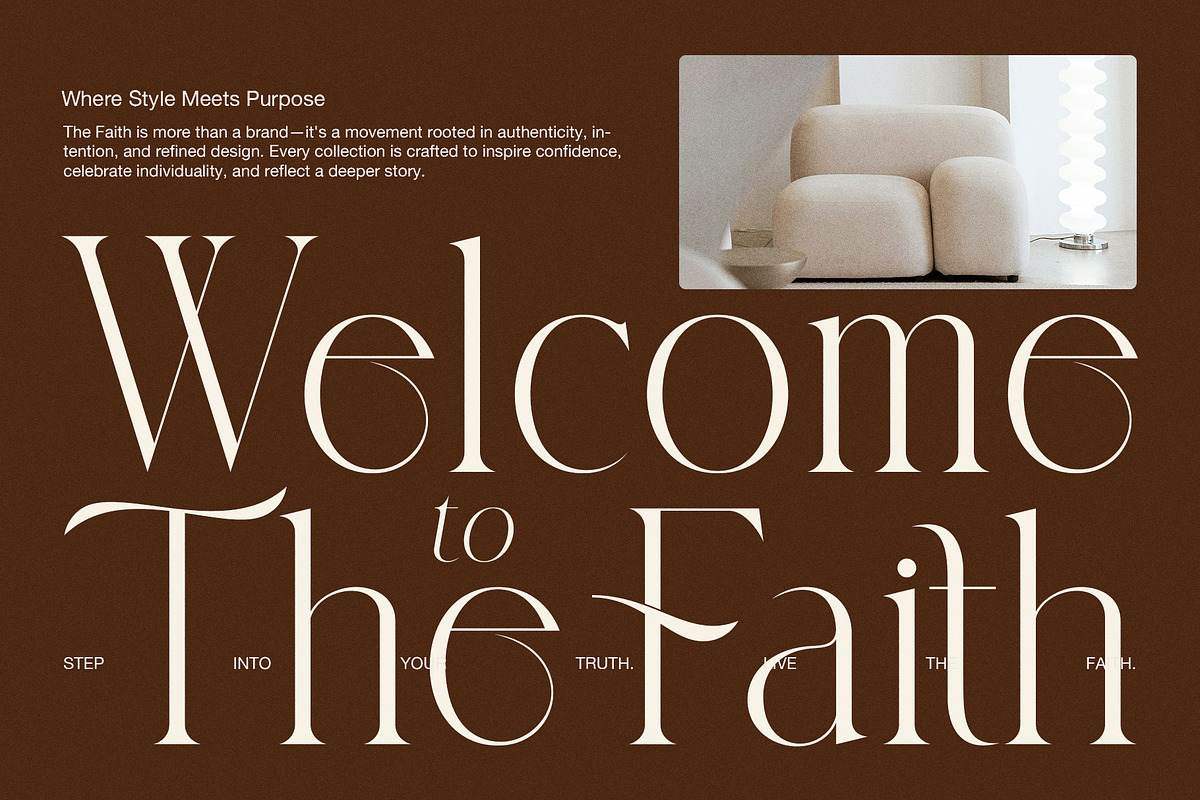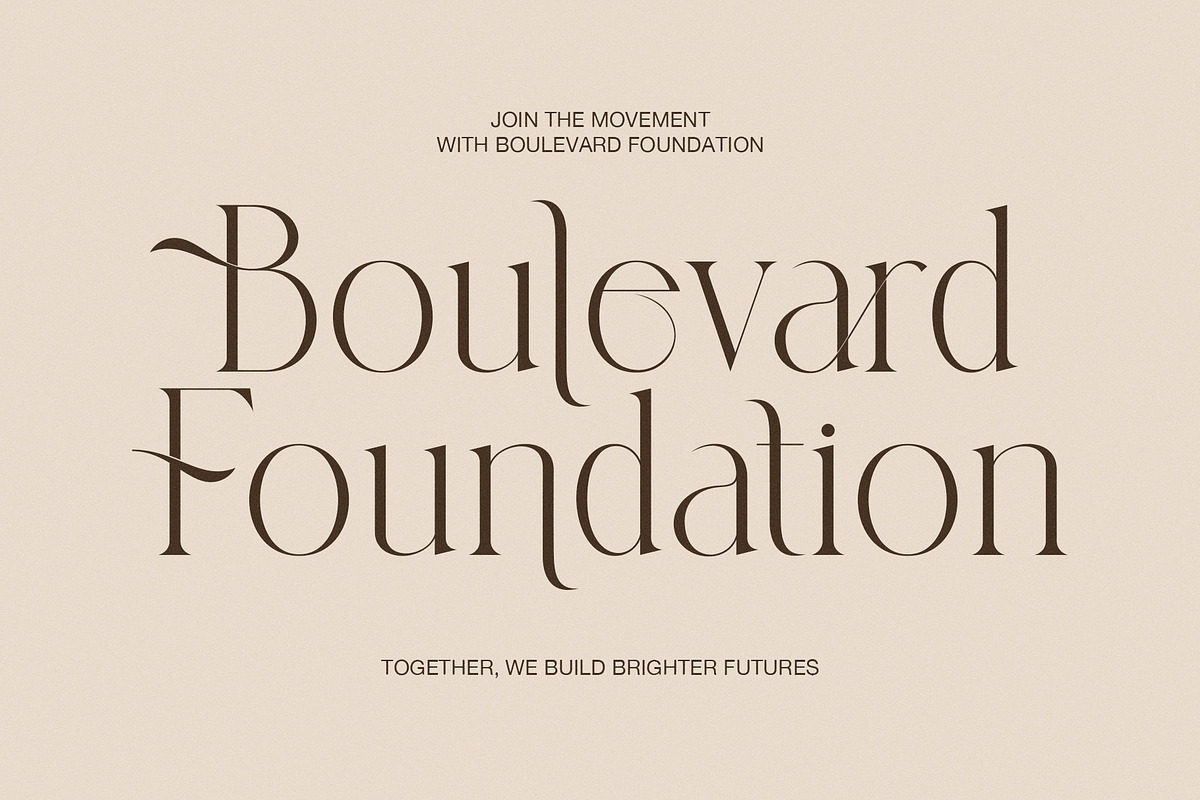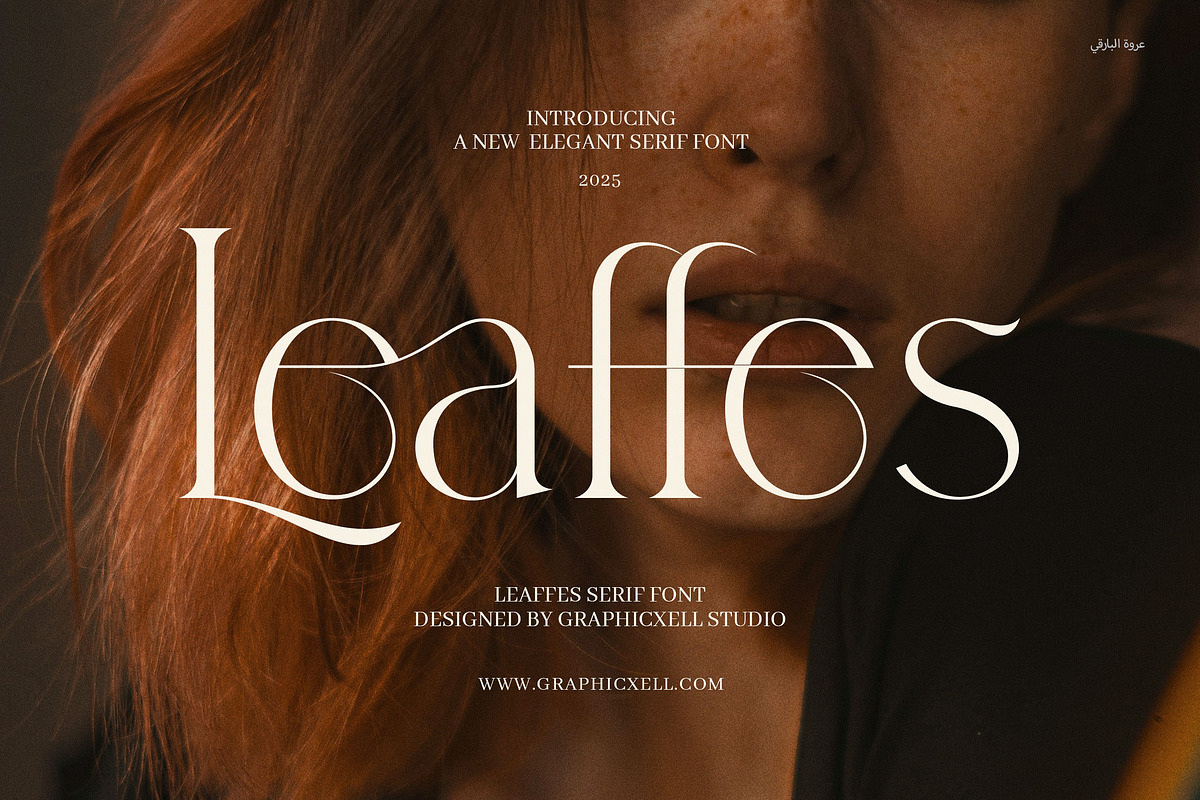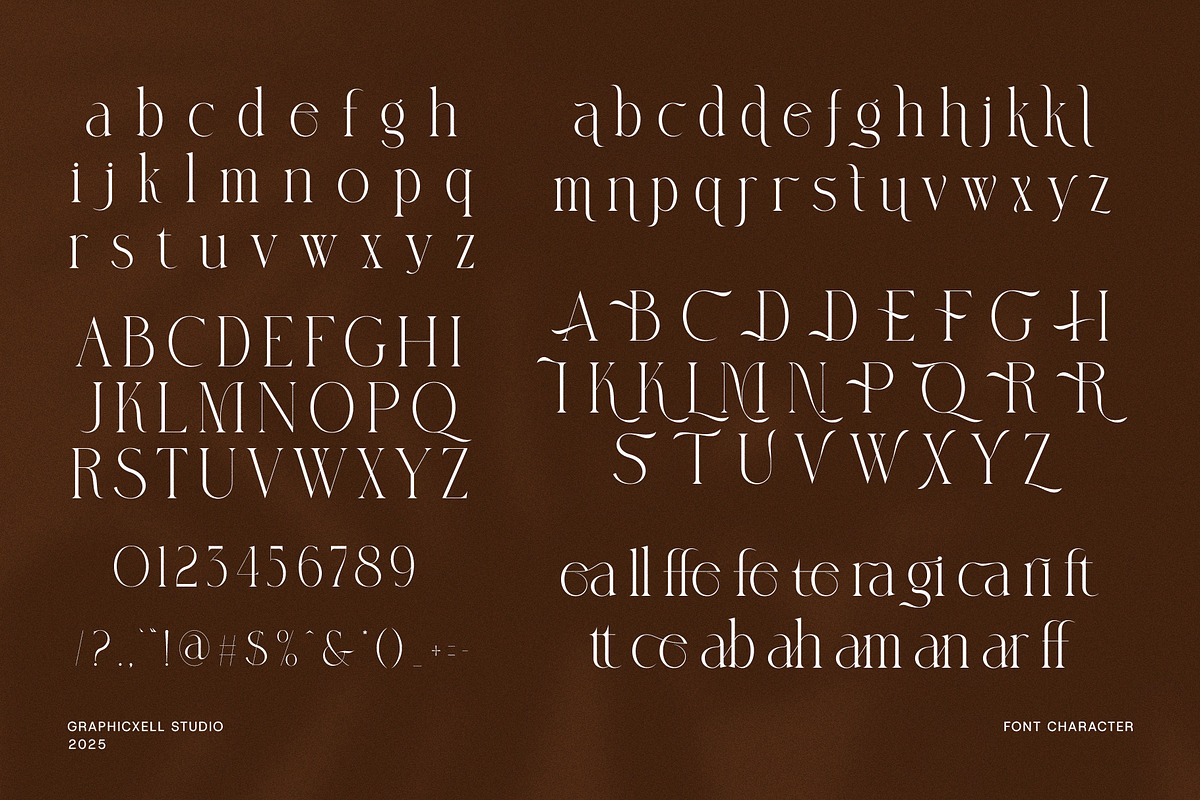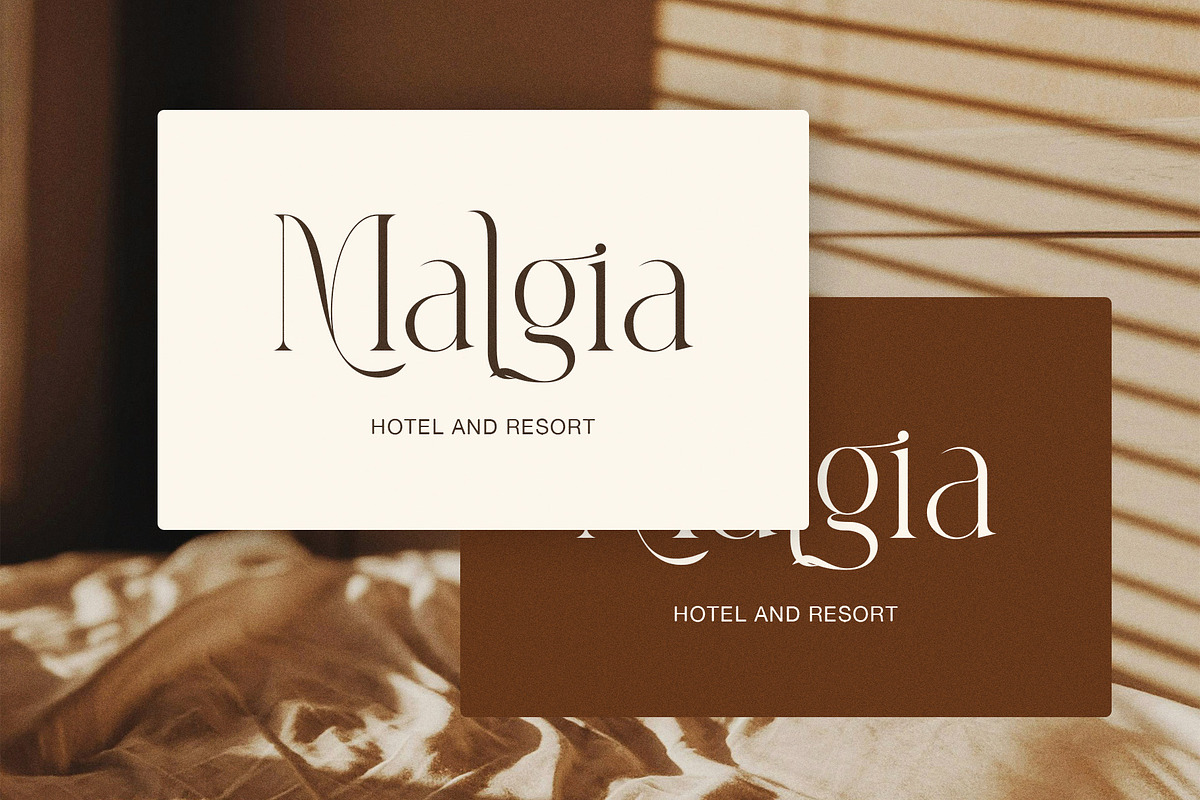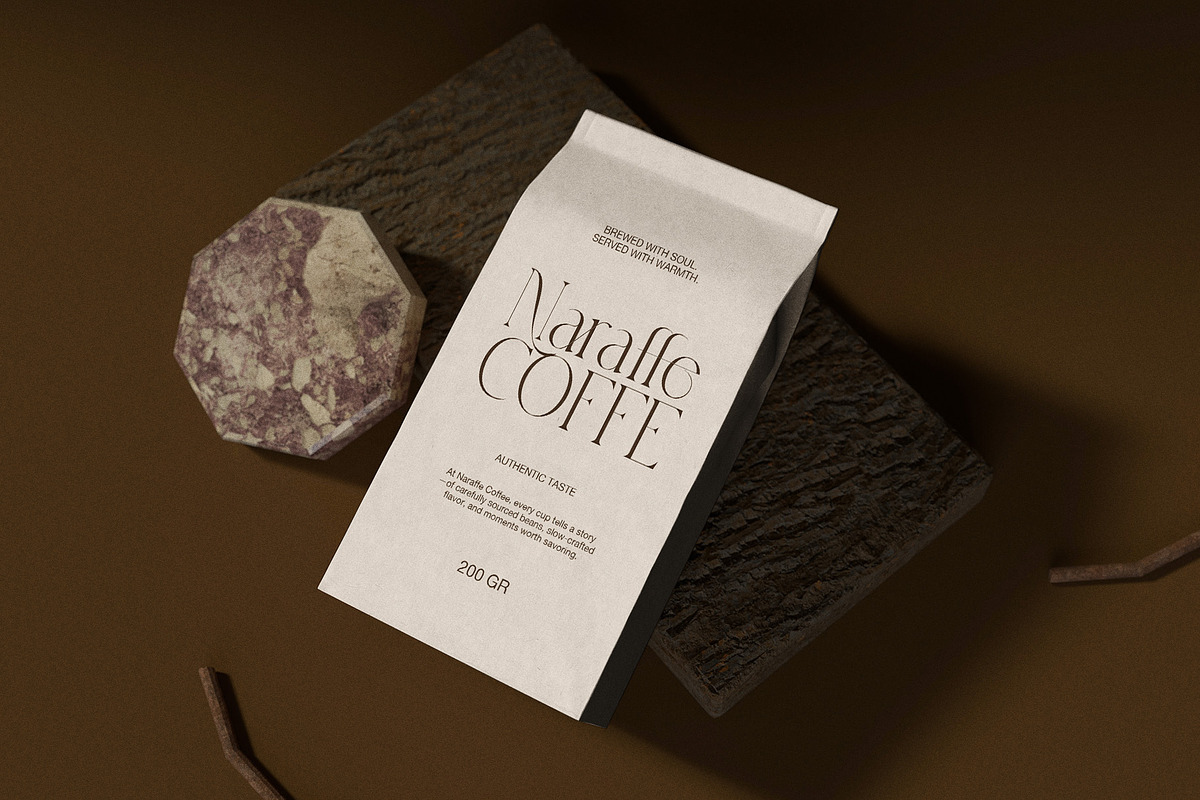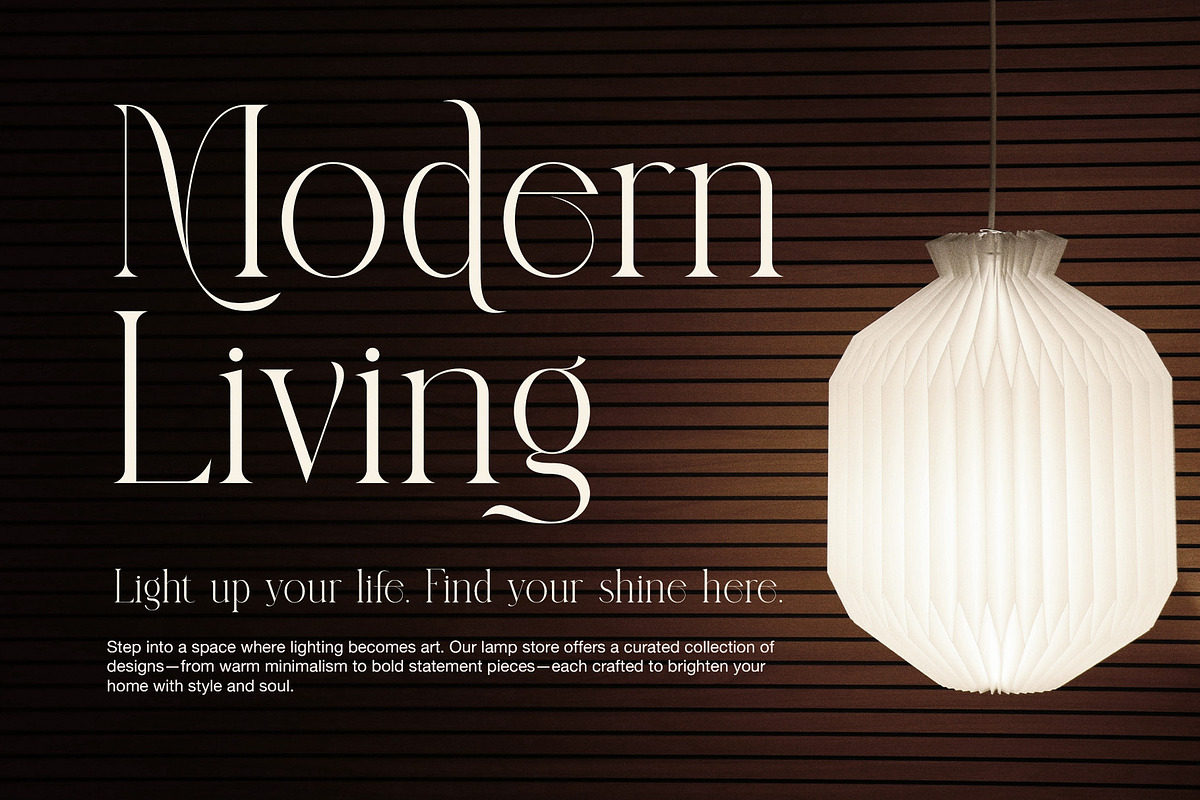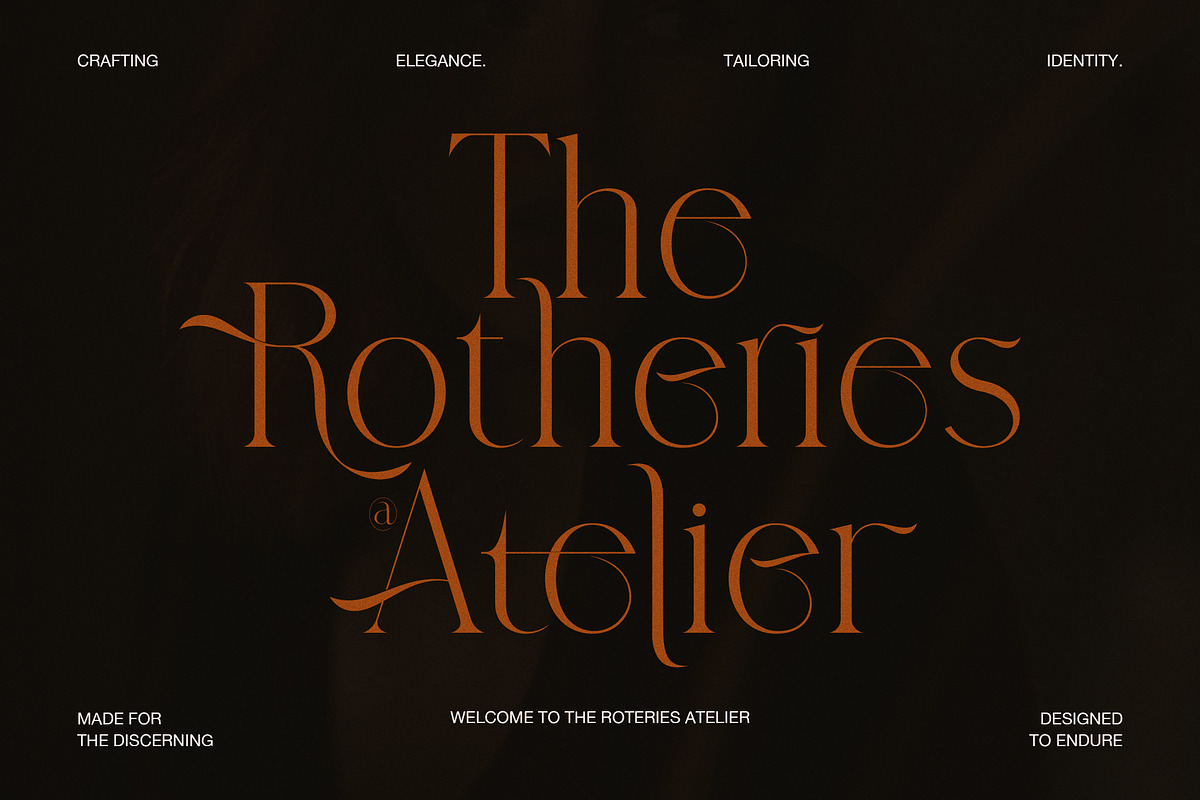
Leaffes Elegant Serif Font
Discover Leaffes Elegant Serif, a timeless typeface that embodies natural beauty, refined elegance, and modern sensibility. Inspired by organic forms and graceful typography, Leaffes brings a fresh take to the classic serif genre—perfect for designers, brands, and creatives looking to communicate with charm, style, and sophistication.
With its subtle curves, stylish serifs, and harmonious contrast, Leaffes is designed to make a lasting impression. This elegant serif font combines a modern aesthetic with delicate, leaf-like detailing that gives it a soft, organic feel—hence the name Leaffes. It evokes a sense of calm elegance while maintaining boldness and clarity, making it incredibly versatile across design needs.
From high-end branding and editorial layouts to product packaging and digital content, Leaffes adapts effortlessly while adding a unique visual identity. It’s the perfect serif for brands that want to exude creativity, elegance, and authenticity.
Features of Leaffes Elegant Serif:
Stylish and modern serif design with soft, organic influence
Beautiful, well-balanced letterforms with a graceful presence
Full uppercase and lowercase alphabet, numerals, punctuation, and multilingual support
Clean, high-contrast characters perfect for both headlines and paragraph text
Works flawlessly for both digital and print projects
Designed for Elegance Across Every Medium
Leaffes is ideal for designers who want to combine tradition with modern sophistication. Its timeless look is elevated by subtle stylistic flourishes, giving every word an air of handcrafted artistry. Use it for logo design, fashion branding, lifestyle blogs, minimalist websites, or even premium packaging—it will add a touch of editorial beauty to every element it touches.
Its readability and refined structure make it an excellent choice for magazine layouts, wedding stationery, restaurant menus, or boutique product labels. Whether you’re designing a classy cosmetics line or a curated lifestyle brand, Leaffes brings an elegant, thoughtful feel to your typography.
Modern logos and brand identities
Fashion and lifestyle magazines
Beauty products and boutique packaging
Wedding invitations and elegant stationery
Blogs, websites, and social media posts
Editorial design and promotional materials
Leaffes combines the best of both worlds: the strength of a classic serif with the charm of a nature-inspired design. It’s simple without being plain, bold without being loud, and stylish without being overdone. The result is a typeface that offers visual warmth and timeless appeal—perfect for modern creatives and sophisticated brands.
Let Leaffes Elegant Serif bring harmony, beauty, and balance to your next design project. Elegant, modern, and undeniably unique—Leaffes is more than just a font; it's your brand’s next signature style.